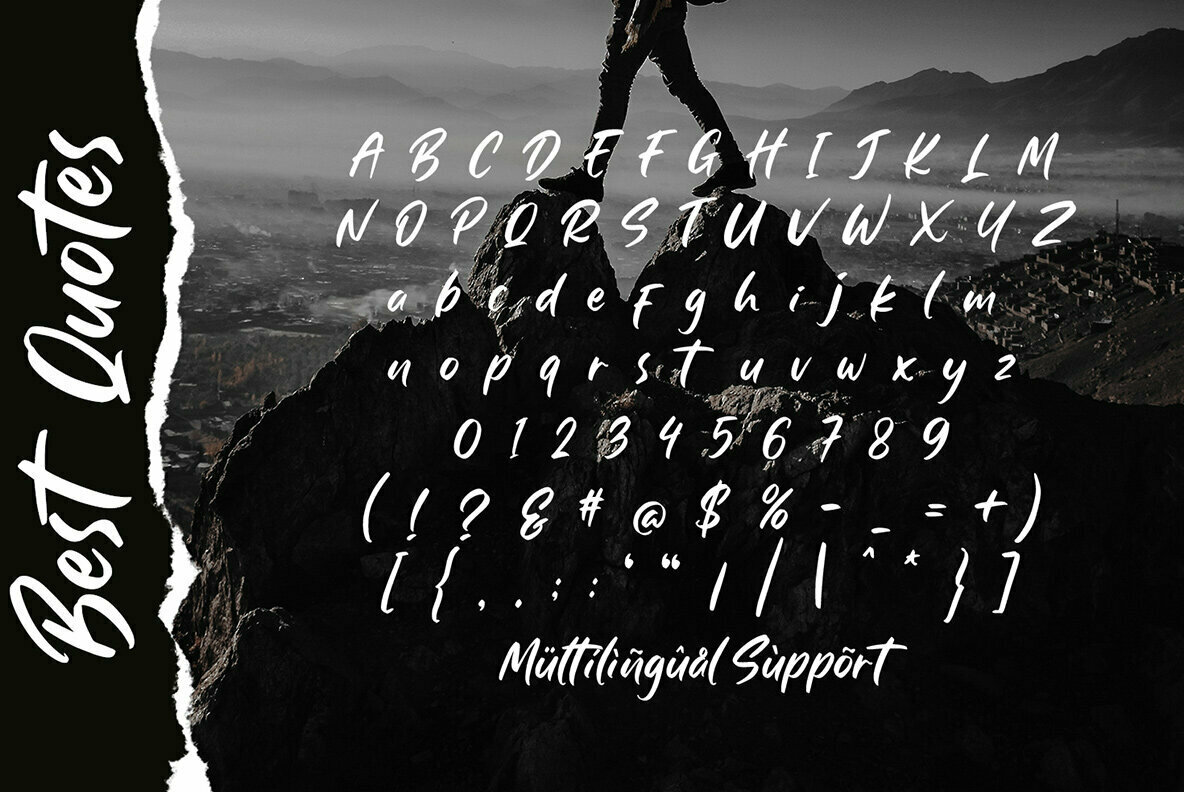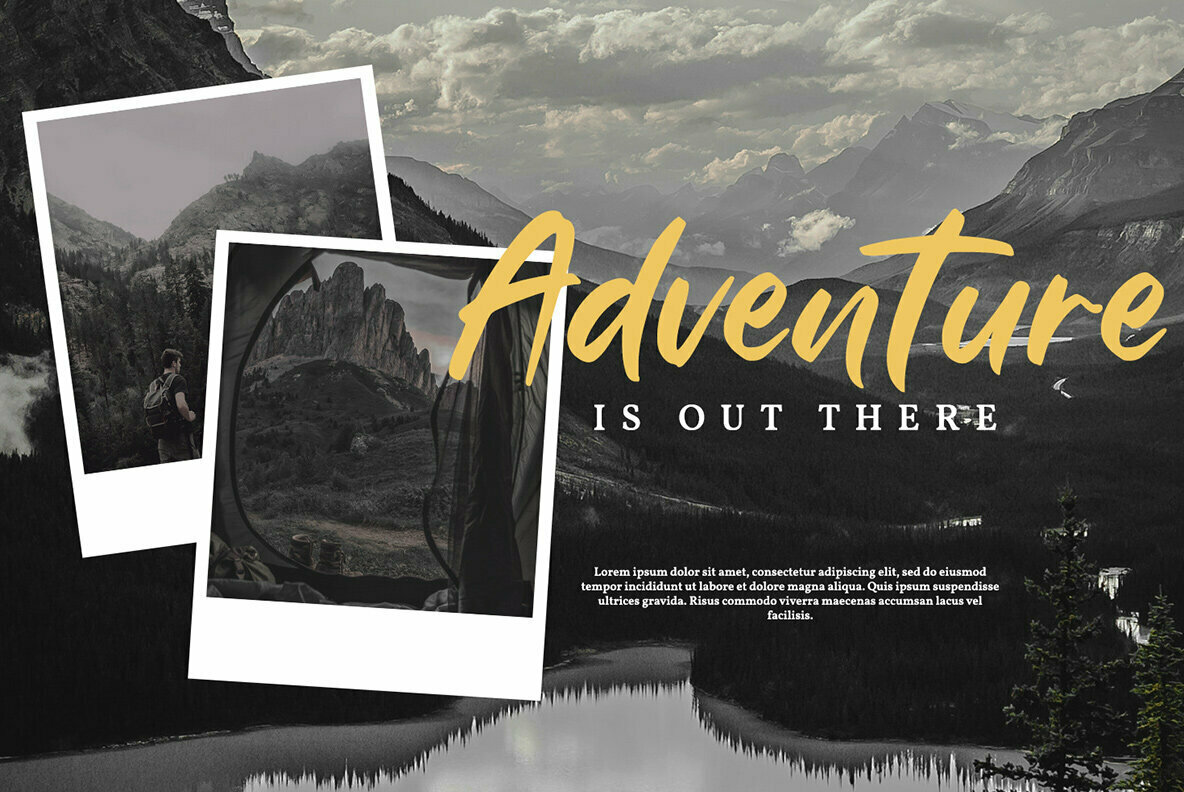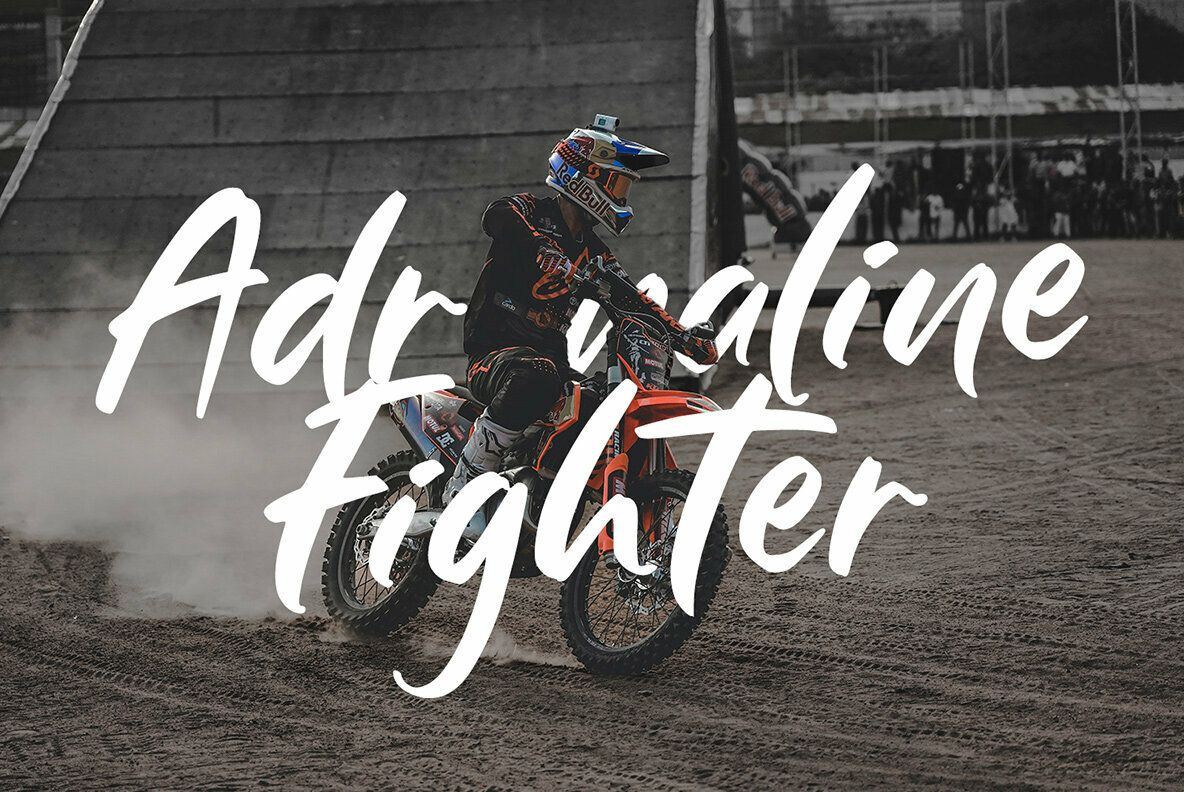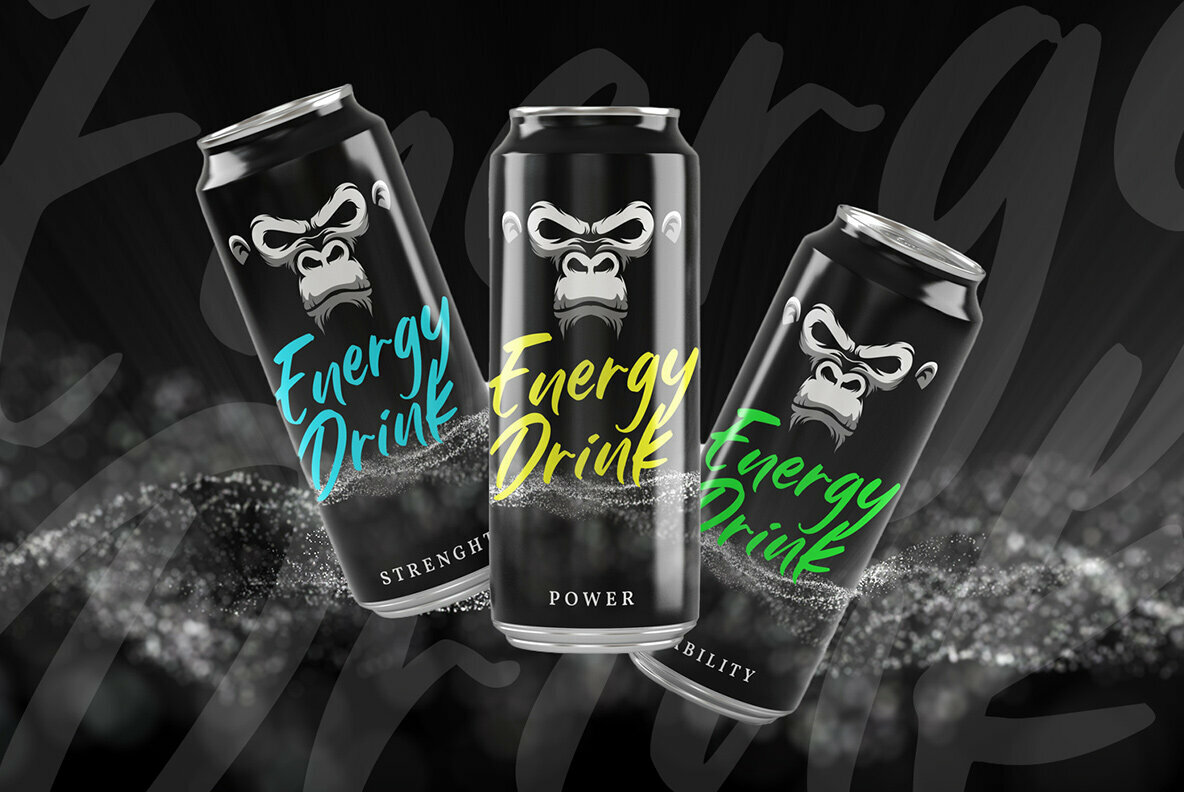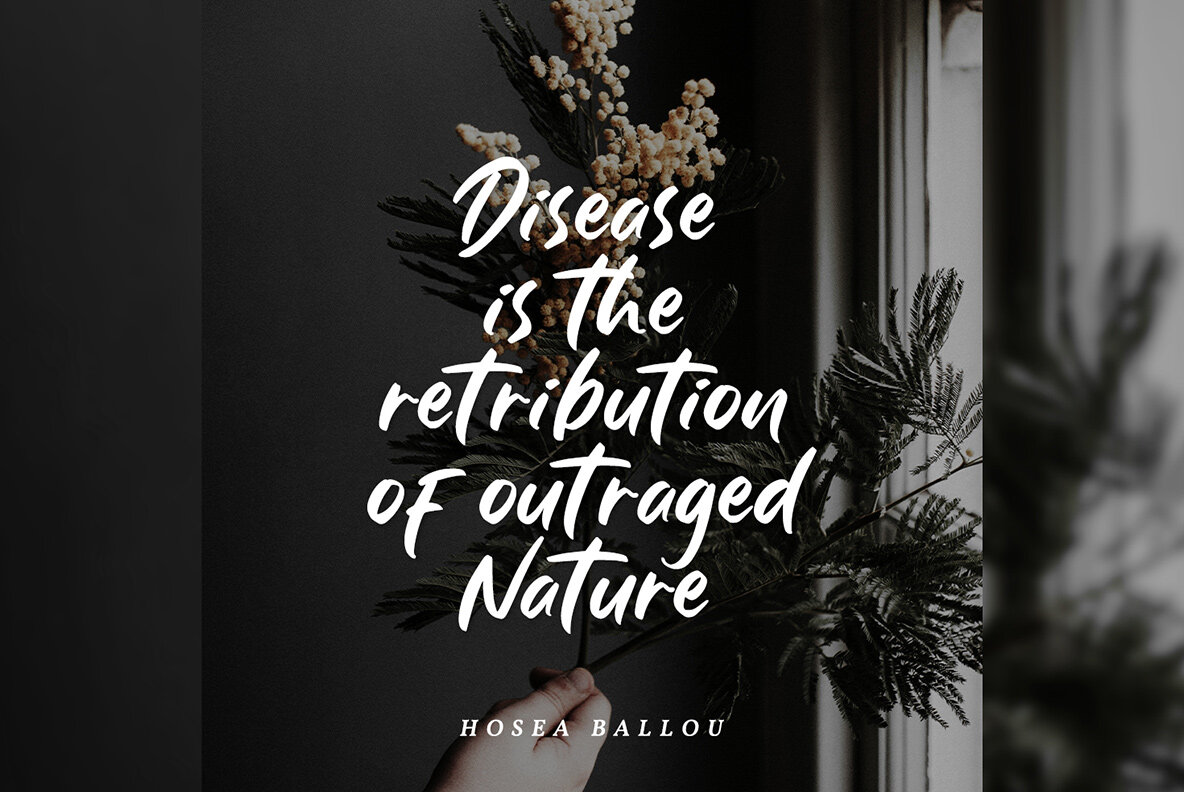
Best Quotes Font
Best Quotes
Best Quotes is a classy handwritten font. Made for any professional project branding. It is the best for logos, branding and of course quotes. Every letter has a unique and beautiful touch.
- Numerals and Punctuation